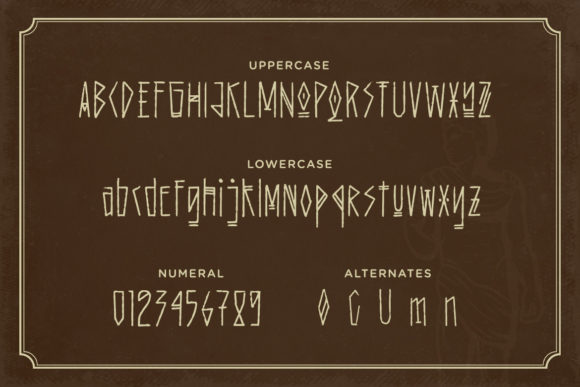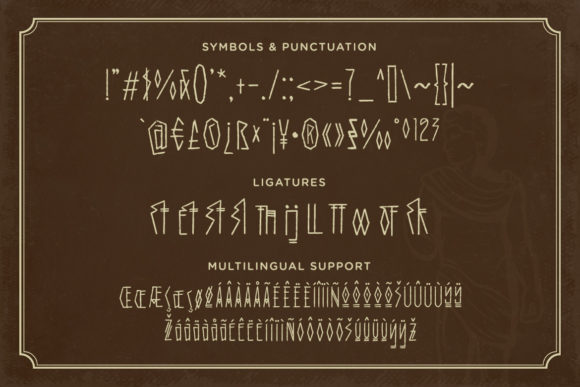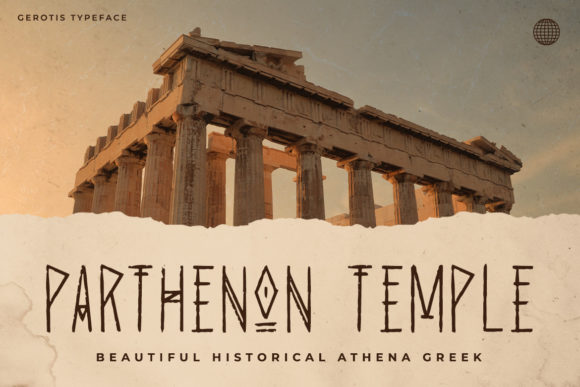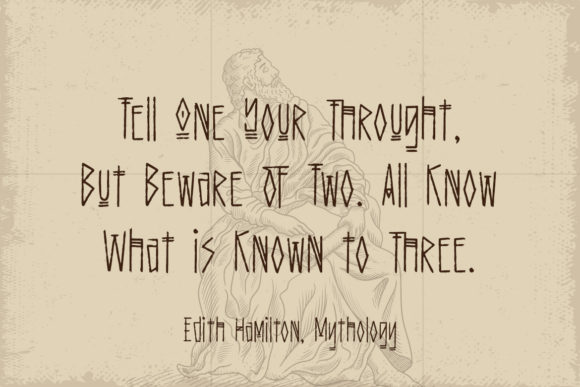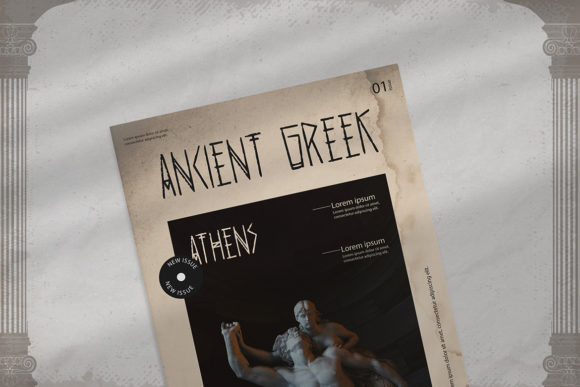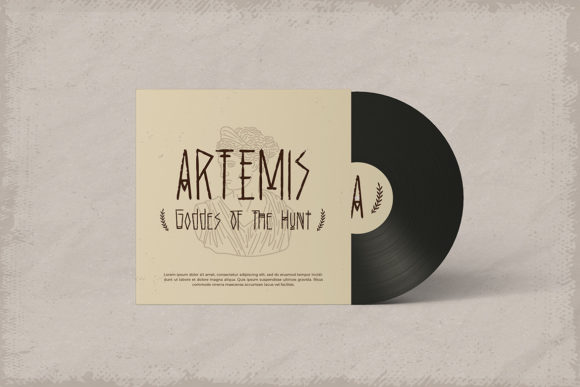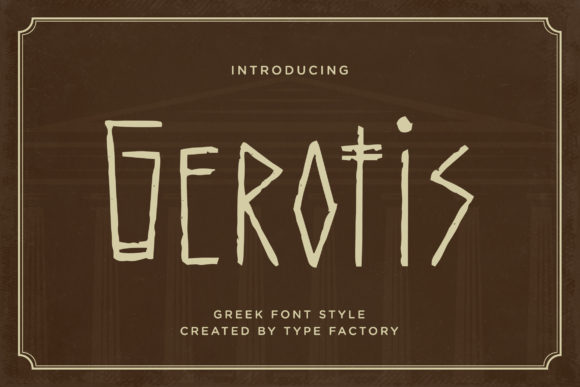
Unleash the Power of Ancient Greek Elegance with Gerotis Font
Are you a designer or crafter looking for a unique and captivating font to elevate your creative projects? Look no further than Gerotis Font, an awesome display font inspired by the timeless beauty of Ancient Greek writing. With its elegant and sophisticated style, Gerotis is the perfect choice for adding a touch of classic charm to any design.
A Font that Transcends Time
Gerotis Font is a masterful recreation of the iconic lettering styles of Ancient Greece, transporting you back to an era of great philosophical and artistic achievement. The font’s design is deeply rooted in the history of Greek typography, with each letterform carefully crafted to evoke the spirit of ancient inscriptions and manuscripts.
Whether you’re working on a poster, book cover, flyer, invitation, or any other print material, Gerotis Font is sure to make a lasting impression. Its versatility knows no bounds, and the only limit is your imagination! From elegant wedding invitations to bold advertising posters, Gerotis is the perfect companion for any design project.
Key Features of Gerotis Font
- Inspired by Ancient Greek writing: Gerotis Font draws inspiration from the classic lettering styles of Ancient Greece, giving your designs a unique and timeless look.
- Elegant and sophisticated: With its refined and polished appearance, Gerotis is perfect for designs that require a touch of elegance and sophistication.
- Highly versatile: Gerotis Font can be used on a wide range of design projects, from posters and book covers to flyers and invitations.
- Easy to use: Gerotis Font is a straightforward and user-friendly font that can be easily integrated into your design workflow.
What Makes Gerotis Font Stand Out
In a world where fonts are a dime a dozen, Gerotis stands out from the crowd with its distinctive and authentic Ancient Greek flair. Here are just a few reasons why Gerotis Font is a cut above the rest:
- Unique character set: Gerotis Font features a comprehensive character set that includes a wide range of letters, symbols, and ornaments, giving you endless creative possibilities.
- Exquisite craftsmanship: Each letterform in Gerotis has been meticulously crafted to ensure that every detail, from the subtlest curve to the boldest stroke, is of the highest quality.
- Instant recognition: Gerotis Font is designed to be instantly recognizable, making it perfect for logos, branding, and other applications where a strong visual identity is crucial.
Tips for Using Gerotis Font
To get the most out of Gerotis Font, here are a few expert tips to keep in mind:
- Experiment with font sizes: Gerotis Font looks great in a wide range of font sizes, from large display headings to smaller body text.
- Play with color and texture: Gerotis Font can be used in a variety of colors and textures, so don’t be afraid to get creative and try out different effects.
- Combine with other fonts: Gerotis Font pairs well with a range of other fonts, so feel free to experiment with different font combinations to create a unique look.
In conclusion, Gerotis Font is an exceptional display font that offers a unique blend of Ancient Greek elegance and modern versatility. Whether you’re a designer, crafter, or simply someone who appreciates beautiful typography, Gerotis is sure to inspire your creativity and elevate your design projects to new heights. So why wait? Download Gerotis Font today and unlock the power of Ancient Greek writing in your designs!